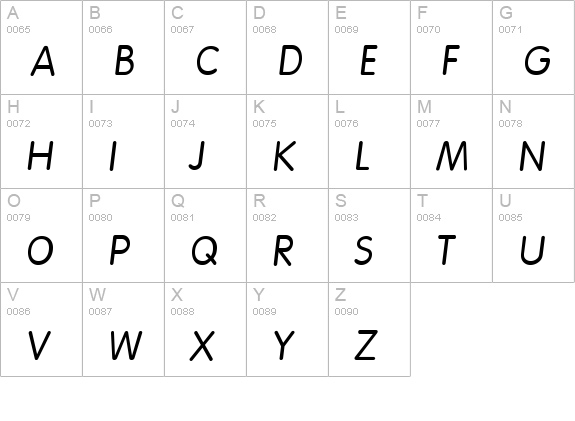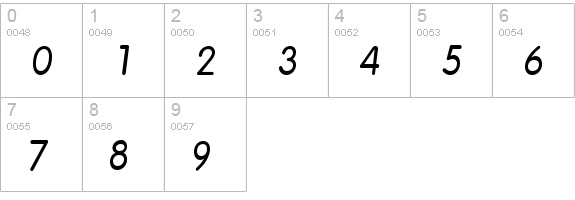
Volkswagen-RegularIta Font Details
Volkswagen-RegularIta is a versatile and elegant font that exudes sophistication and charm. Its clean and modern design makes it perfect for a wide range of projects, from branding and advertising to editorial and web design. The font features a unique combination of classic letterforms with a contemporary twist, resulting in a timeless yet fresh look. With its balanced proportions and legible letterforms, Volkswagen-RegularIta ensures optimal readability in any context. Its subtle curves and refined details add a touch of elegance and professionalism to any design. Whether used for headlines, body text, or captions, this font will effortlessly elevate the visual appeal of any project. One of the best features of Volkswagen-RegularIta is that it is freely available to download at FontsMarket.com. This means that you can easily access and use this remarkable font without any restrictions, making it a valuable asset for both personal and commercial projects. Its accessibility and versatility make it a perfect choice for designers and creatives looking to add a touch of sophistication to their work. So why wait? Experience the beauty and versatility of Volkswagen-RegularIta today by downloading it for free at FontsMarket.com. Transform your designs with this exceptional font and take your projects to new heights of elegance and professionalism.